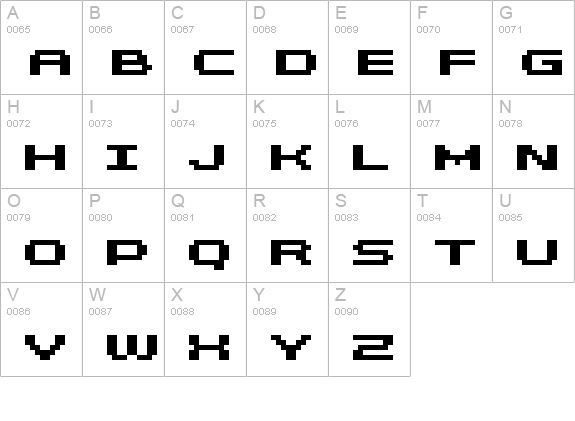
Grixel Kyrou 5 Wide Bold Xtnd is a strong, high-contrast, extended-width variant in the Grixel typeface family \xE2\x80\x94 well suited to headlines, attention-grabbing titles, and strong calls-to-action.
Grixel Kyrou 5 Wide Bold Xtnd font is a bold and striking typeface that commands attention with its wide stance and powerful presence. Its sharp lines and modern aesthetic make it perfect for headlines, titles, and other display purposes where impact is key. This extended version of the Grixel Kyrou 5 Wide Bold font offers even more versatility and visual impact. And the best part? This impressive font is available for free download at FontsMarket.com. With just a few clicks, you can enhance your designs with the bold and dynamic Grixel Kyrou 5 Wide Bold Xtnd font, adding a touch of modern flair and sophistication to your projects. Don't miss out on this opportunity to elevate your design game with this fantastic typeface, now conveniently accessible at no cost.